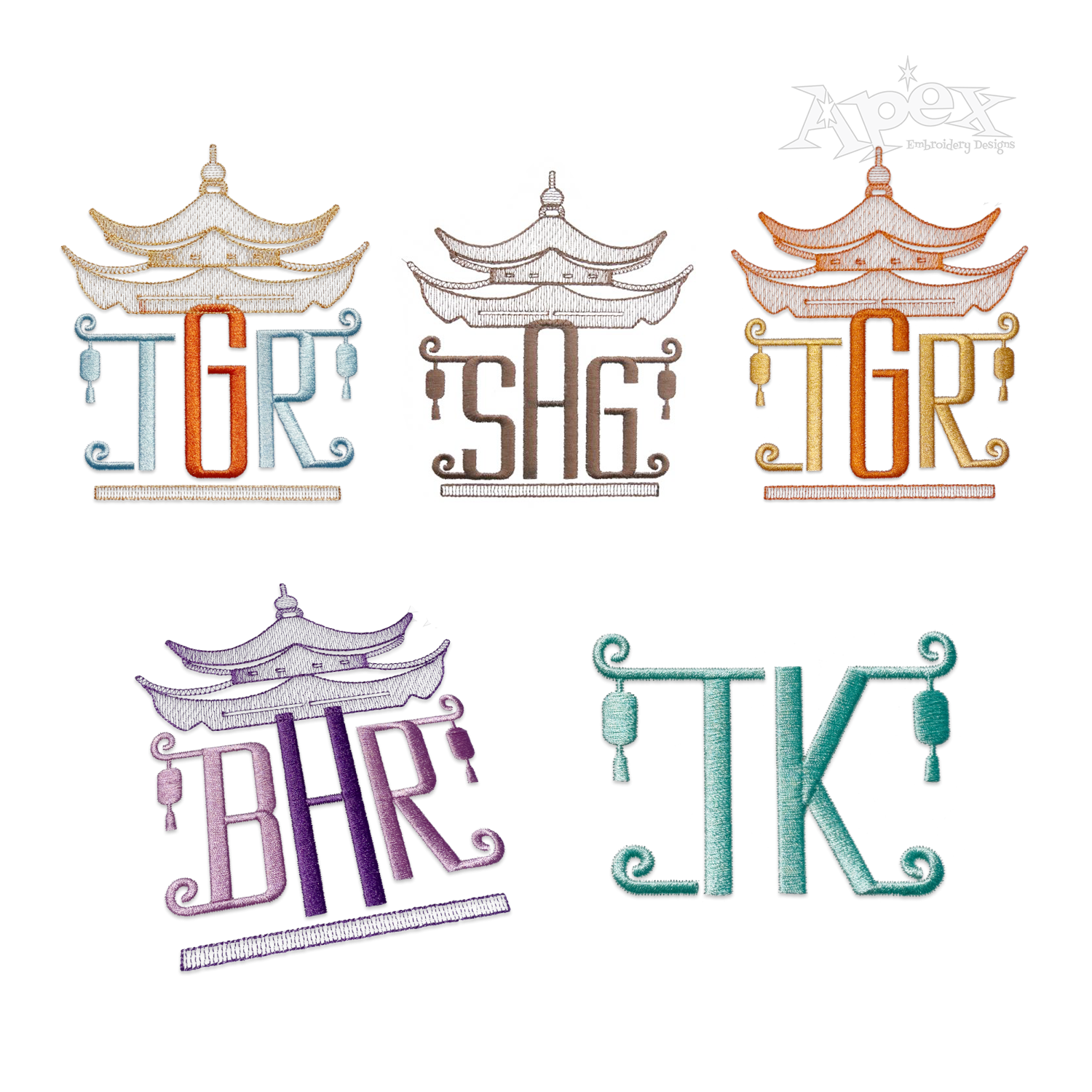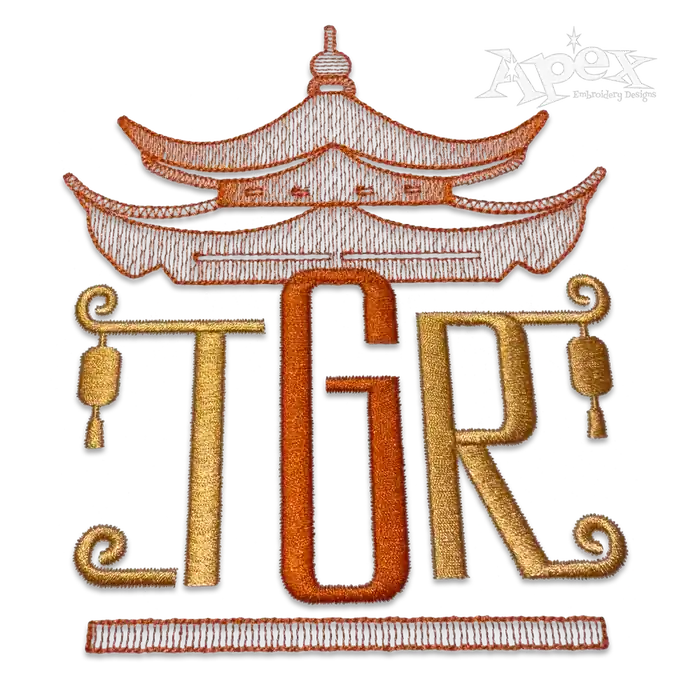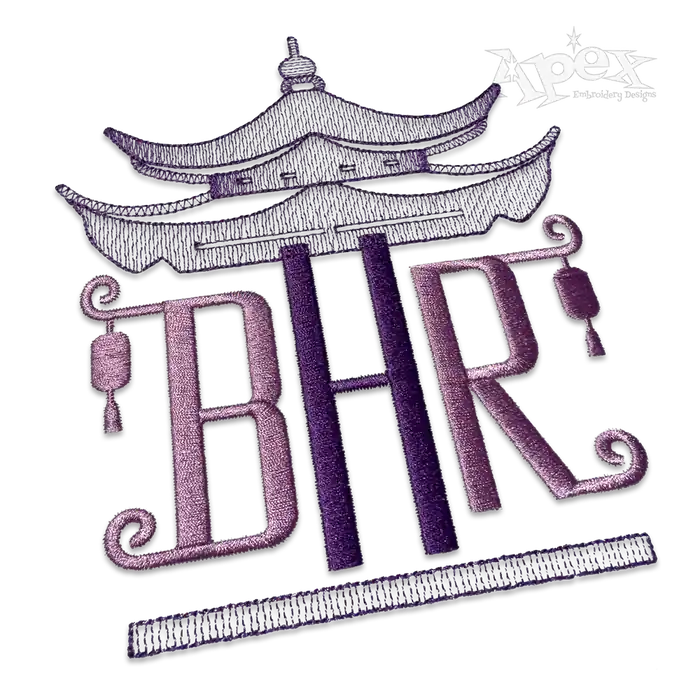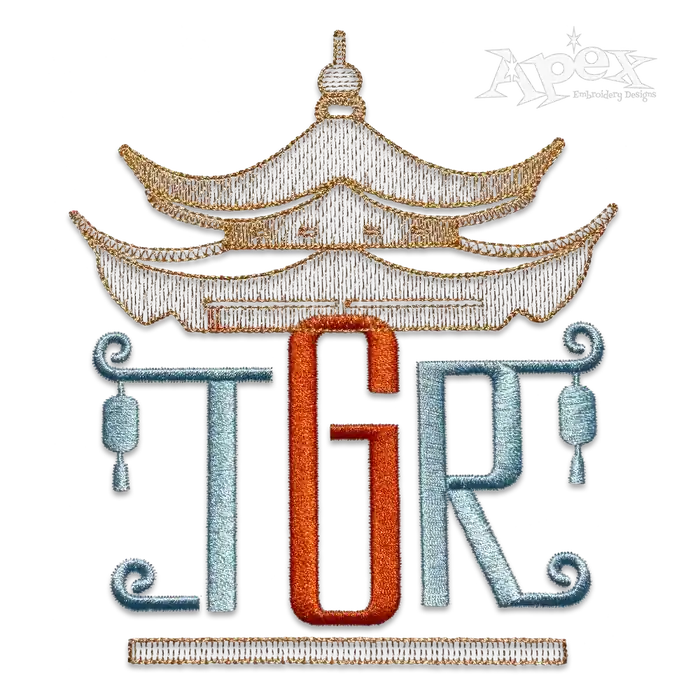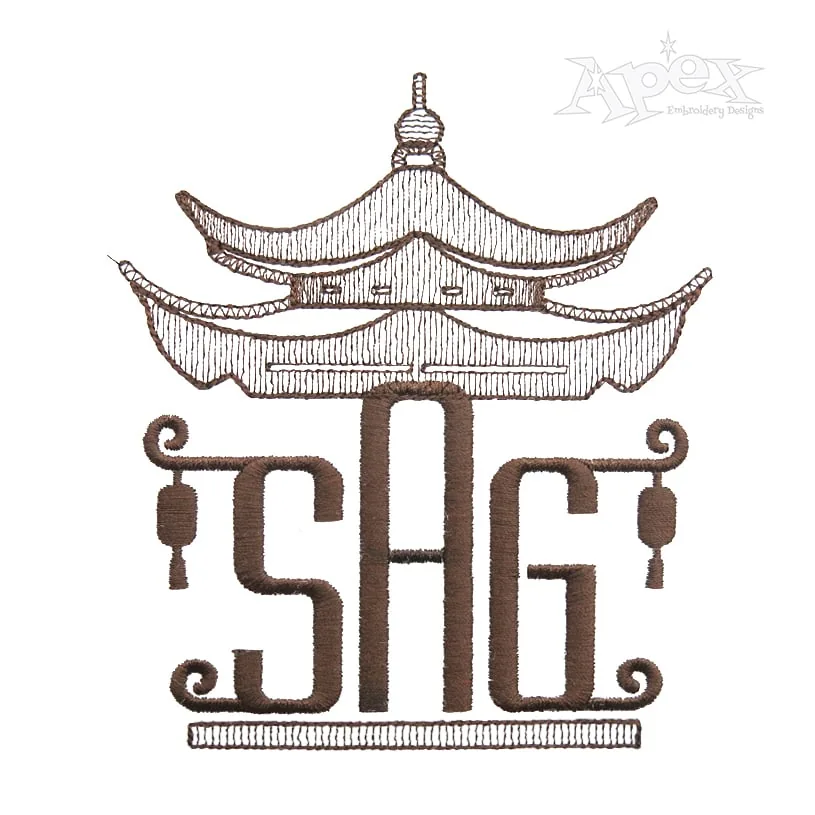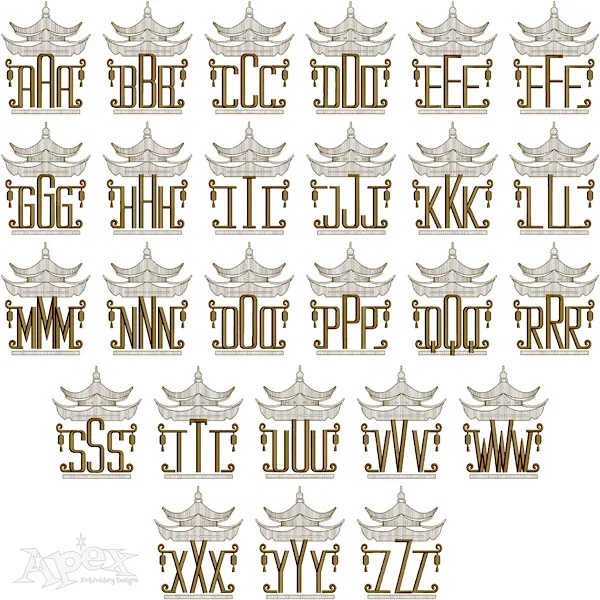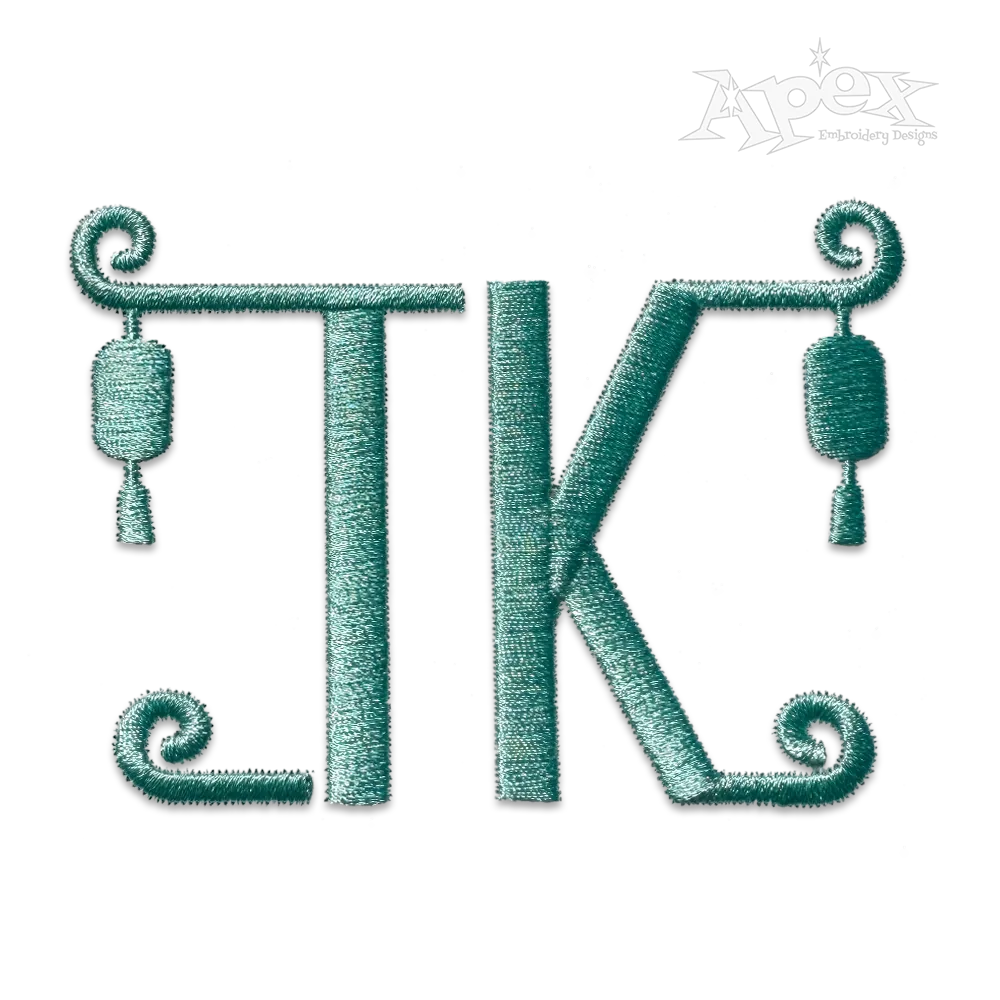
Chinoiserie Pagoda Monogram Embroidery Font
Historic garden pavilions meet grandmillennial needlecraft in Chinoiserie Pagoda Monogram Embroidery Font. Inspiration sprang from antique Asian porcelain, tiered tea house eaves, and classic coastal estates. Central initial anchors ornamental pagoda roof, while flanking letters suspend graceful lantern charms above scrolled feet. Every outline radiates timeless charm, transforming custom monogramming into heirloom embroidery filled with stately garden romance.
Project Ideas for Chinoiserie Pagoda Monogram
- Luxury Table Linens: Stitch matching three-letter monogram sets onto crisp linen cocktail napkins and formal dinner runners for high-end dining tablescapes.
- Heirloom Bedding: Embellish tailored pillow shams, duvet covers, and boudoir cushions with grand architectural monograms.
- Bespoke Resort Wear: Embroider lightweight linen cover-ups, beach tunics, and bridal robes for destination wedding party gifting.
- Canvas Totes & Weekend Bags: Run large pagoda initials centered across heavy cotton boat bags for preppy country club outings.
- Personalized Gifting: Upgrade guest towels, cosmetic cases, and nursery accent blankets into cherished bespoke keepsakes.
- Corner Diagonal: Angle design at 45 degrees across lower right hem of dinner napkins and tea towels for polished tabletop presentation.
- Center Chest: Position motif centrally on structured resort shirts, summer lounge robes, or zip-up pullover sweaters.
- Cuff & Hem Placement: Scale placement along wide robe cuffs, pocket plackets, or decorative pillow flange borders.
- Border Alignment: Center directly above hemstitch borders on heirloom bath linens to frame architectural roofline cleanly.
Chinoiserie Pagoda Monogram Craft & Letterform Details
Digitizing architectural lines demands deliberate tension and structured satin flow. Pagoda roof features stacked ridges digitized with angled stitch path directions, creating distinct light reflection across thread planes. Center uppercase character supports roof weight through reinforced base underlay, preventing fabric push and puckering. Outer letters balance composition with delicate hanging lantern finials and swept scroll serifs. Pure satin stitch alphabet contours deliver sharp edges without stitch bunching. Needle navigates tight decorative turns smoothly, giving personalized gifting projects clean boutique definition and heritage elegance.